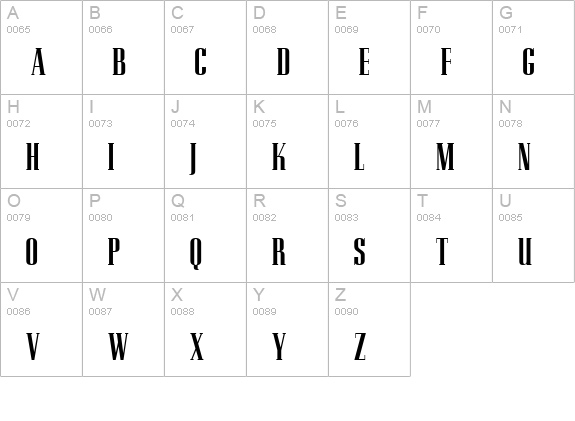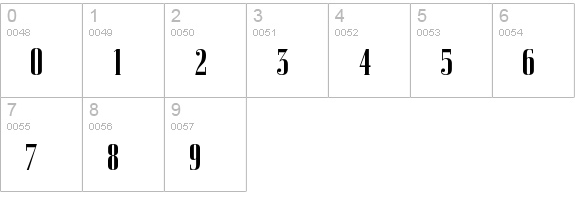
Corvinus Skyline ICG Font Details
Corvinus Skyline ICG font is a modern and elegant typeface that exudes sophistication and style. With its sleek, sharp lines and geometric design, this font is perfect for creating eye-catching headlines, logos, and branding materials. The unique letterforms of Corvinus Skyline ICG add a touch of class to any project, making it a versatile choice for both digital and print designs. What sets Corvinus Skyline ICG font apart is that it is available for free download at FontsMarket.com. This means that you can easily access this high-quality font without any cost, allowing you to elevate your designs without breaking the bank. Whether you are a seasoned designer or just starting out, Corvinus Skyline ICG font is a valuable addition to your font collection. Download it today and see how it can enhance your creative projects!